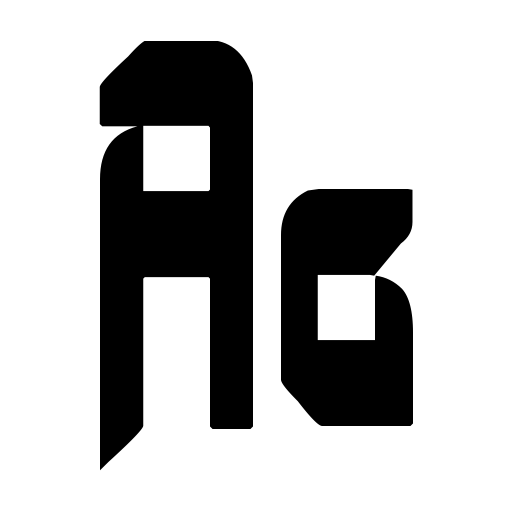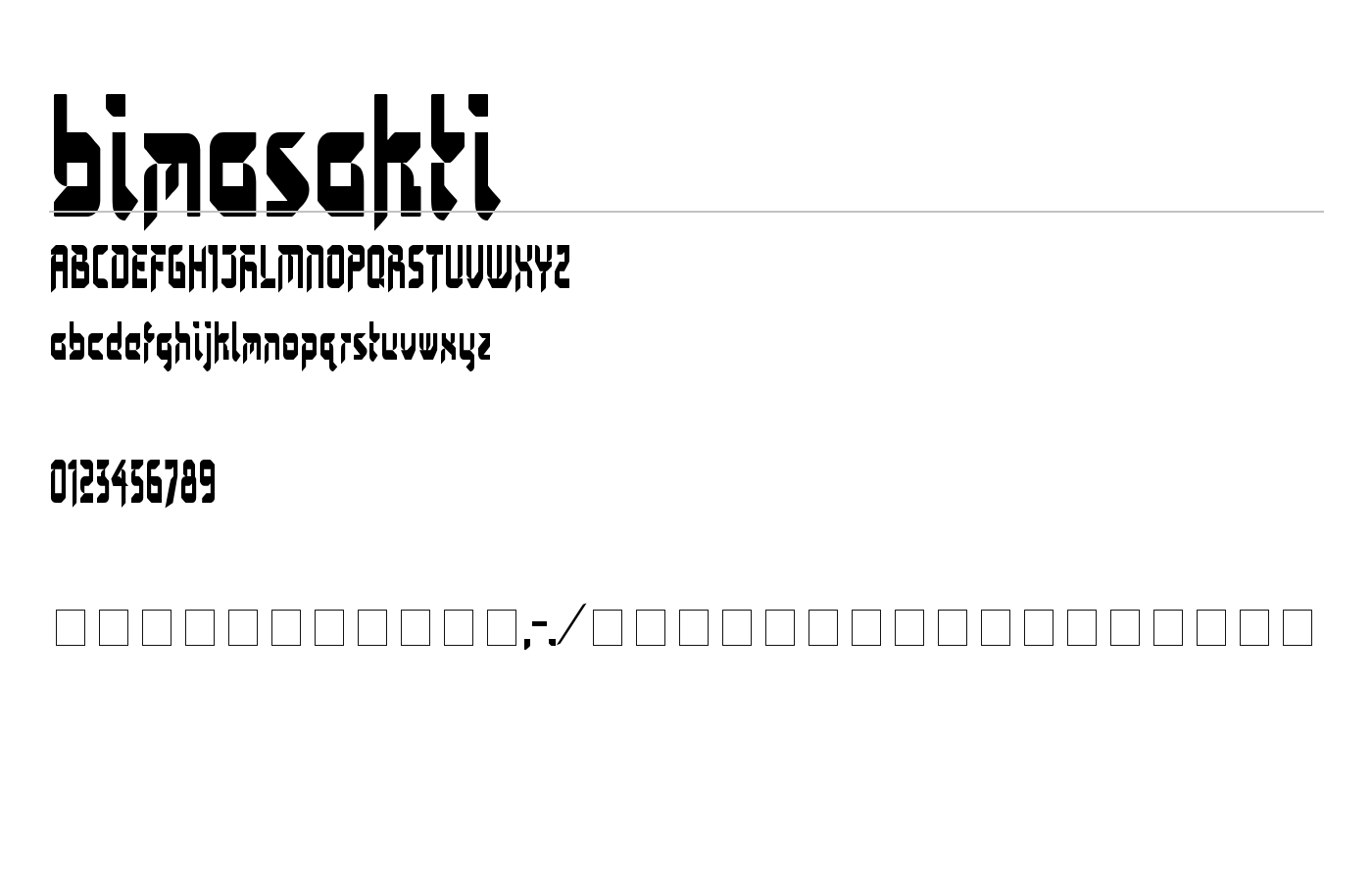
Bimasakti is a bold, condensed sans serif font characterized by sharp, geometric edges and a futuristic, angular style. Its tightly spaced letterforms and minimal contrast give it a striking, modern appearance, making it ideal for eye-catching headlines, posters, and branding that requires a strong, edgy personality. This font works best in designs where impact and a tech-inspired vibe are desired.
bimasakti Font